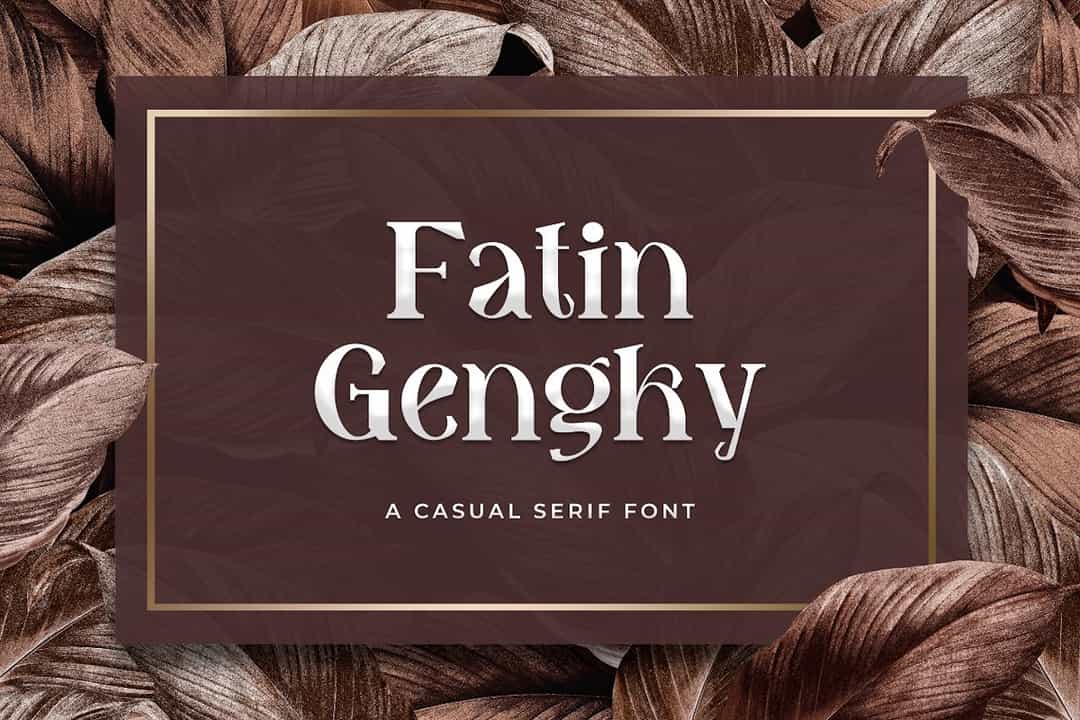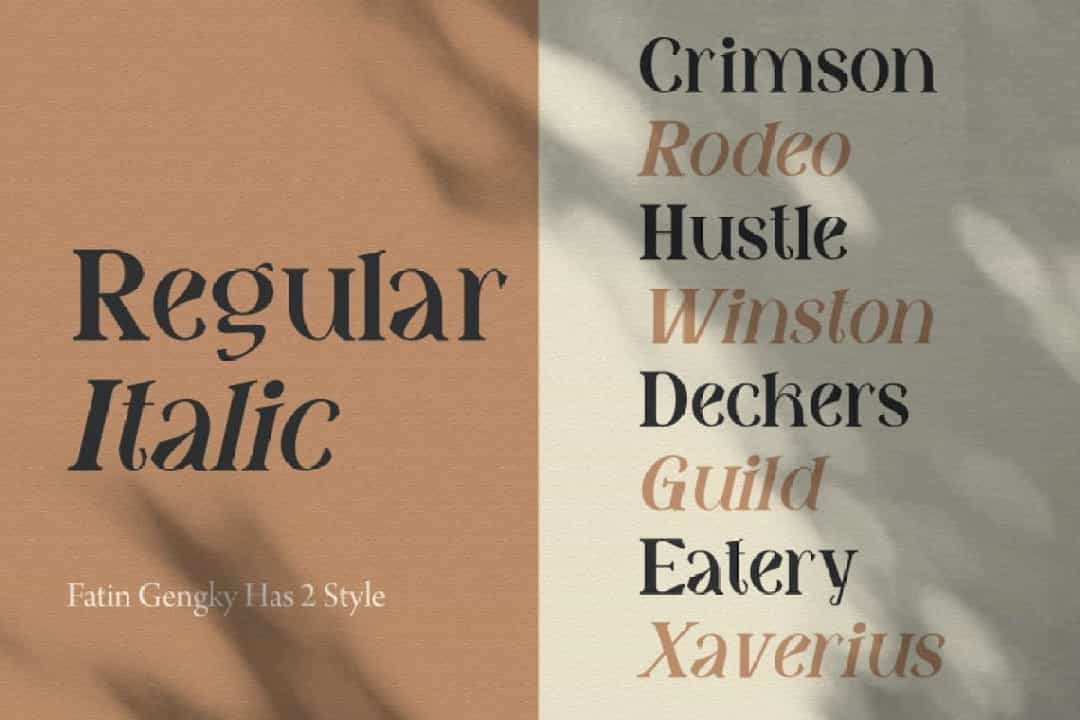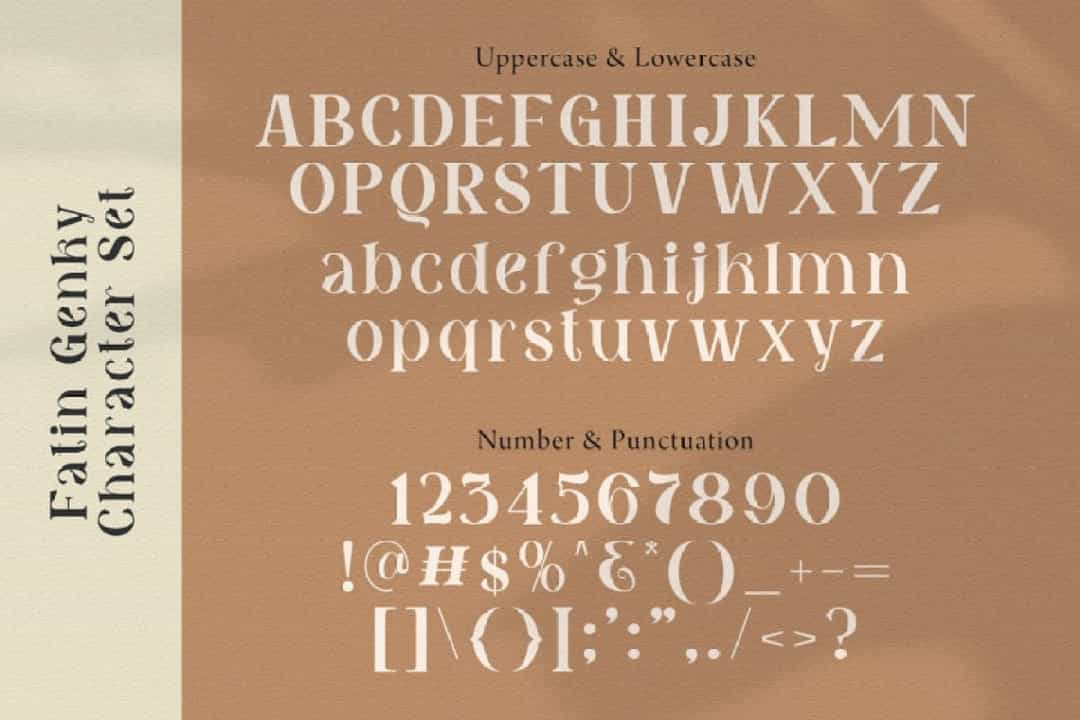
Discover Fatin Gengky Font, part of the Serif collection—a versatile and unique font perfect for adding a personal touch to your projects. Download it for free and enjoy crafting designs with style, from invitations to social media posts. This font is available exclusively for personal use, giving you the freedom to create without limits. Unlock your creativity with Fatin Gengky Font today!
Fatin Gengky offers two weight font families for creating unique template designs as well as stationary. Ideal for creating clean and modern headlines, logos banners templates banners etc, Fatin Gengky font is ideal for creating memorable templates designs as well as stationary.